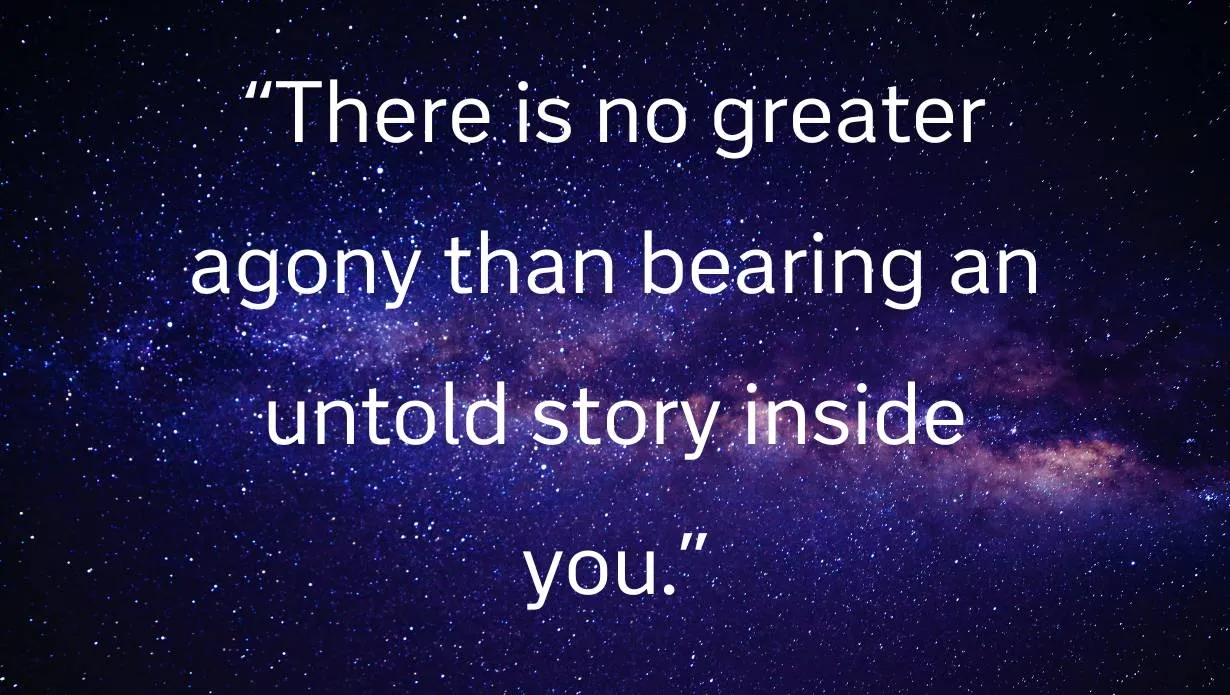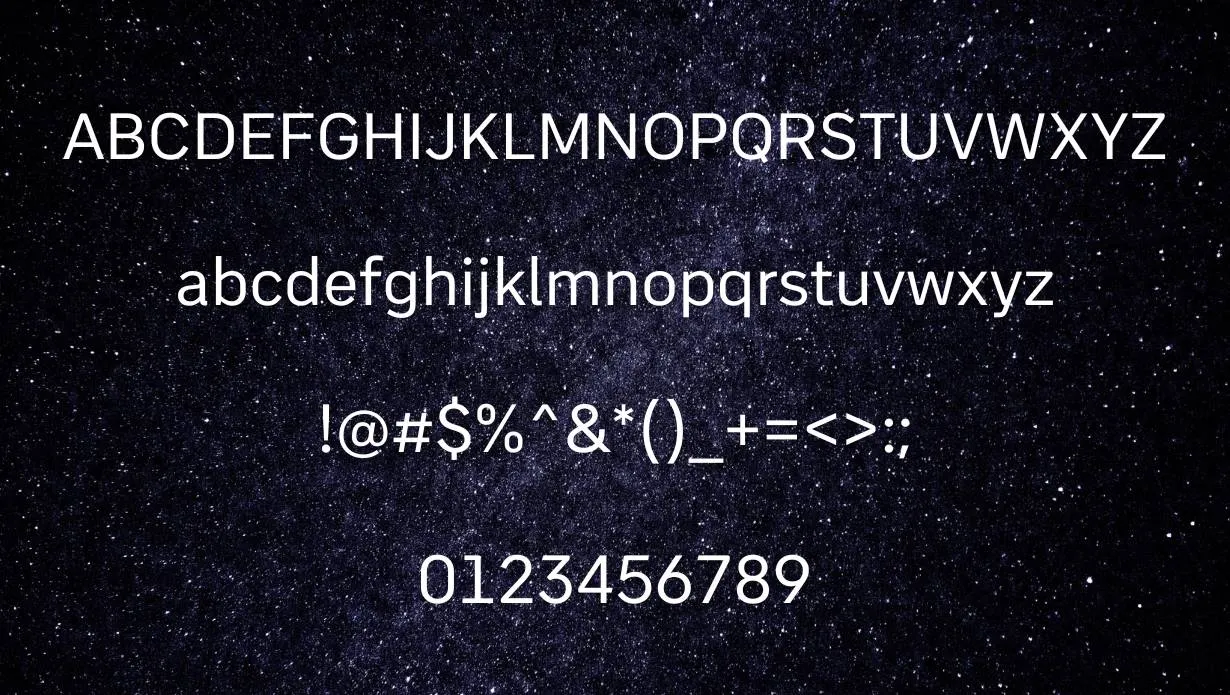
Publik Font is a famous font that is mostly used by website developers and designers. It was created in 2023 by Essen International.
It is a perfect option if you are looking for a font that gives a professional look to your assignments and projects. There are nine styles in this Font and its glyph weight starts from 300 to 900. It also looks very similar to theĀ dm sans font.
- Publik Regular
- Publik Bold Italic
- Publik Semi Bold
- publik Italic
- publik Bold
View of Publik Font
Publik Font Info
| Name | Publik Font |
| Designer | Essen International |
| Style | Sans Serif |